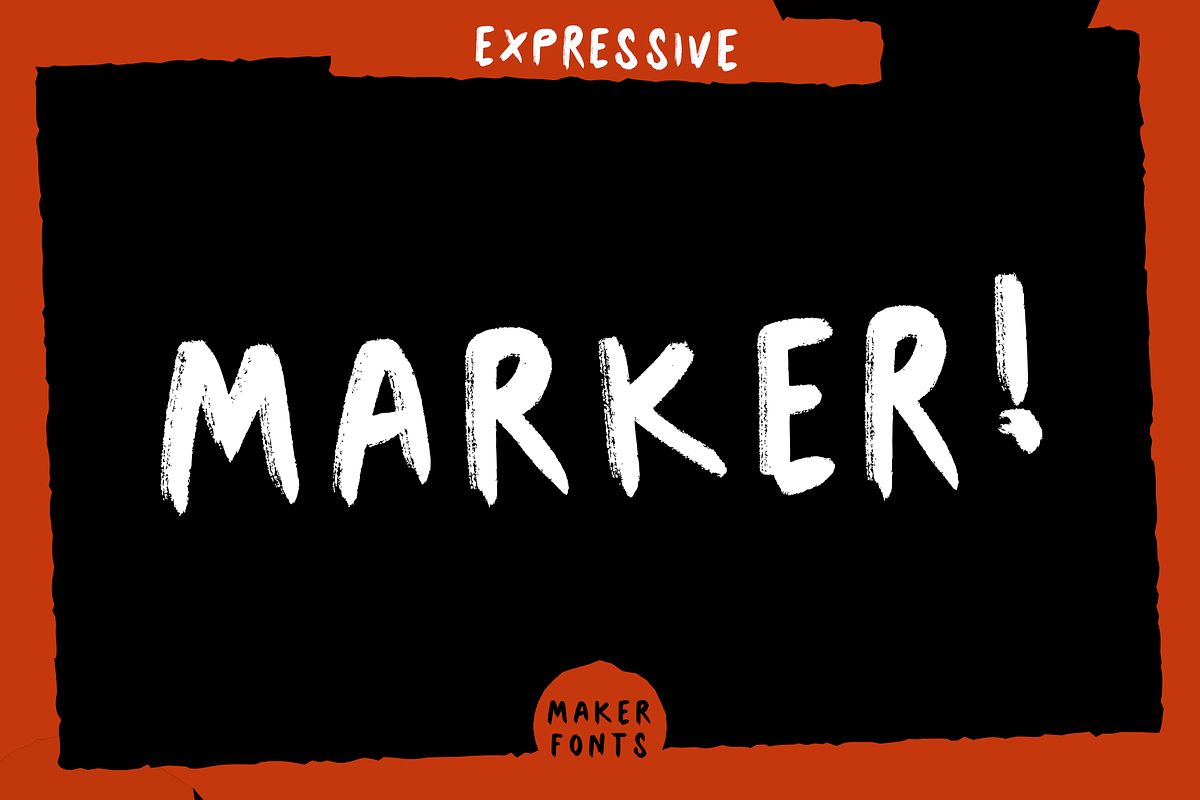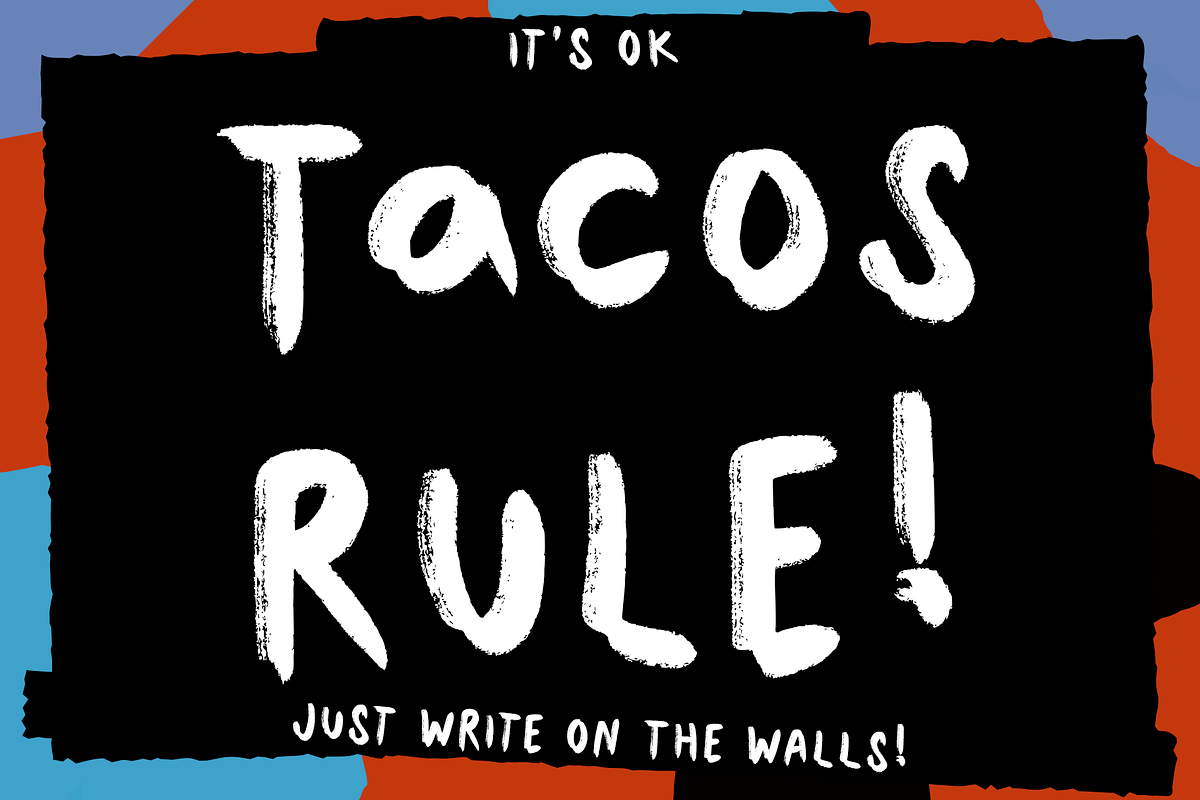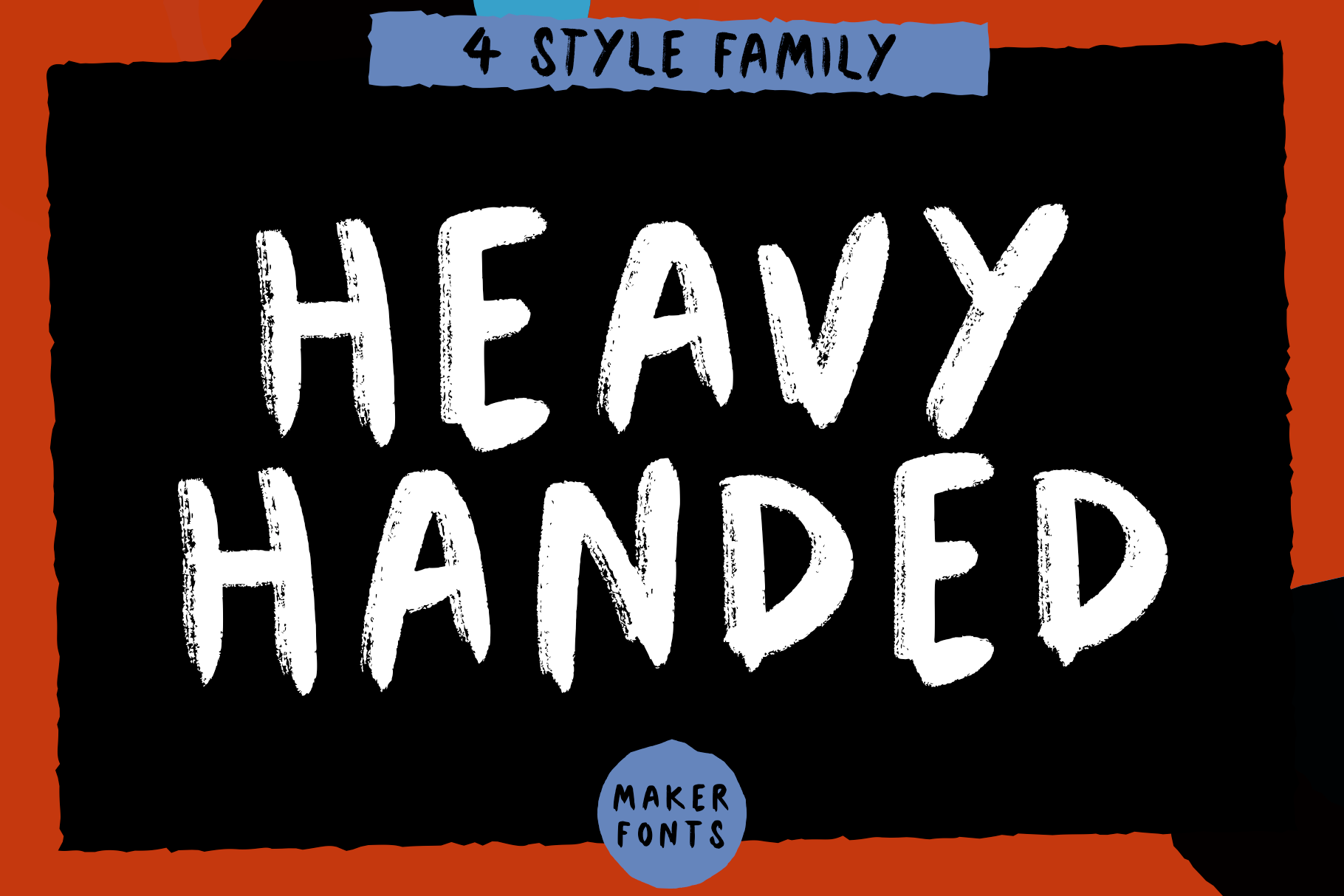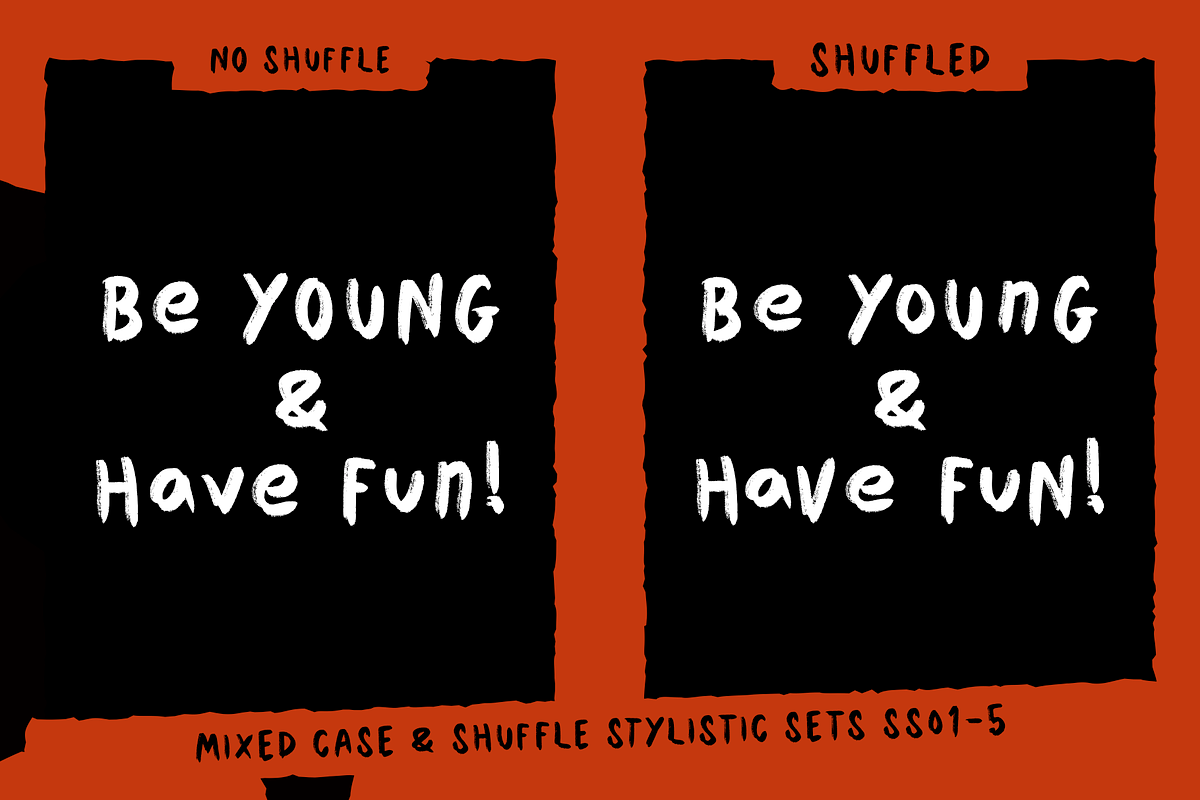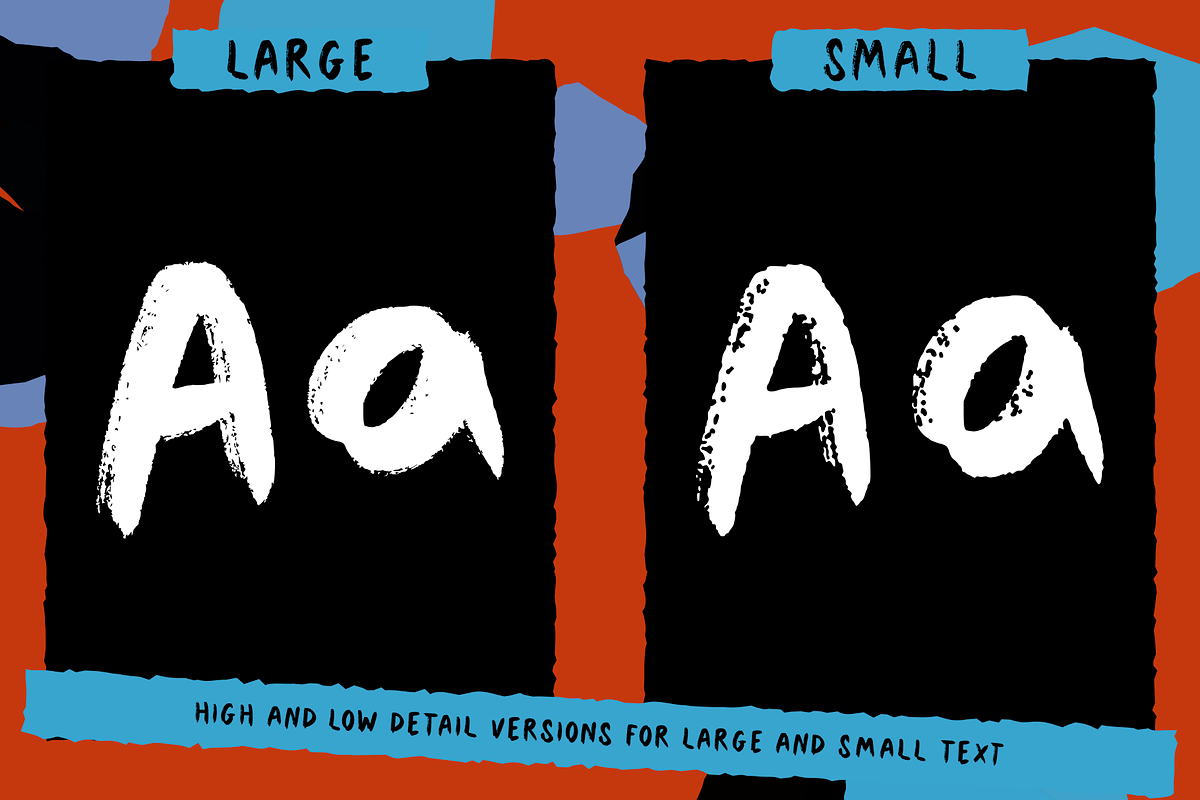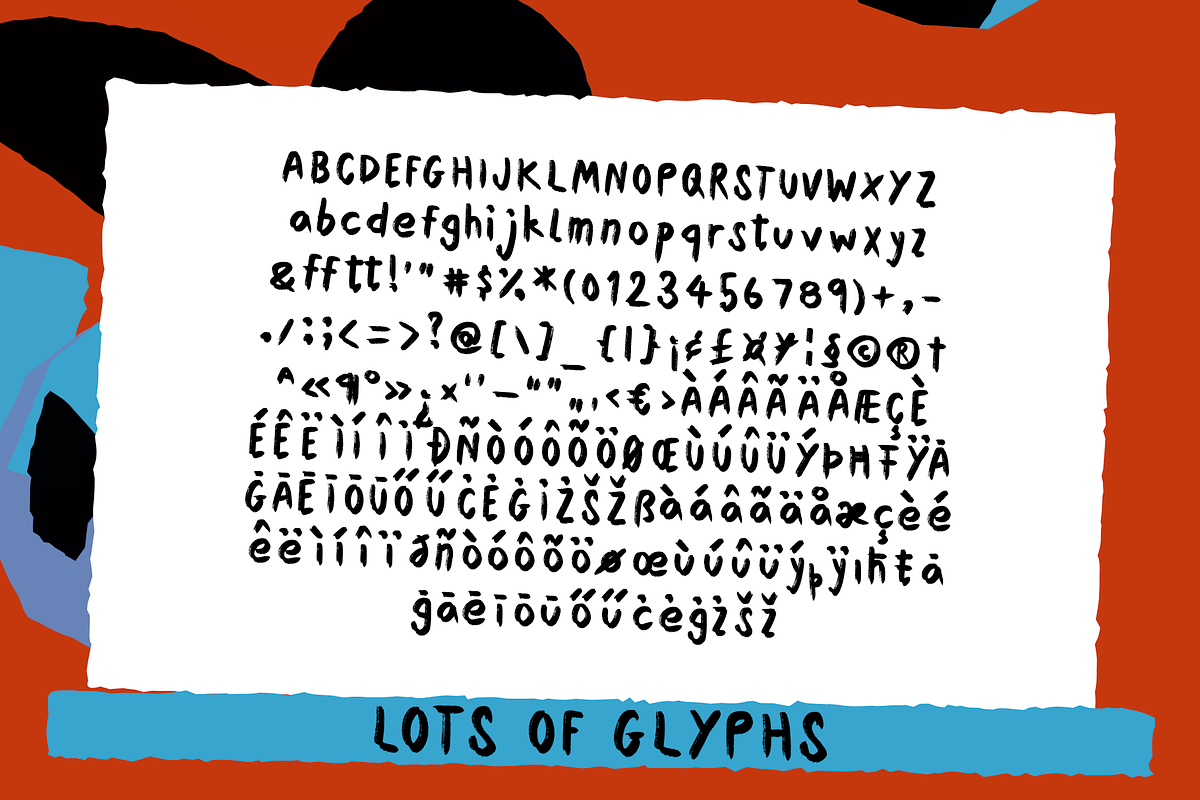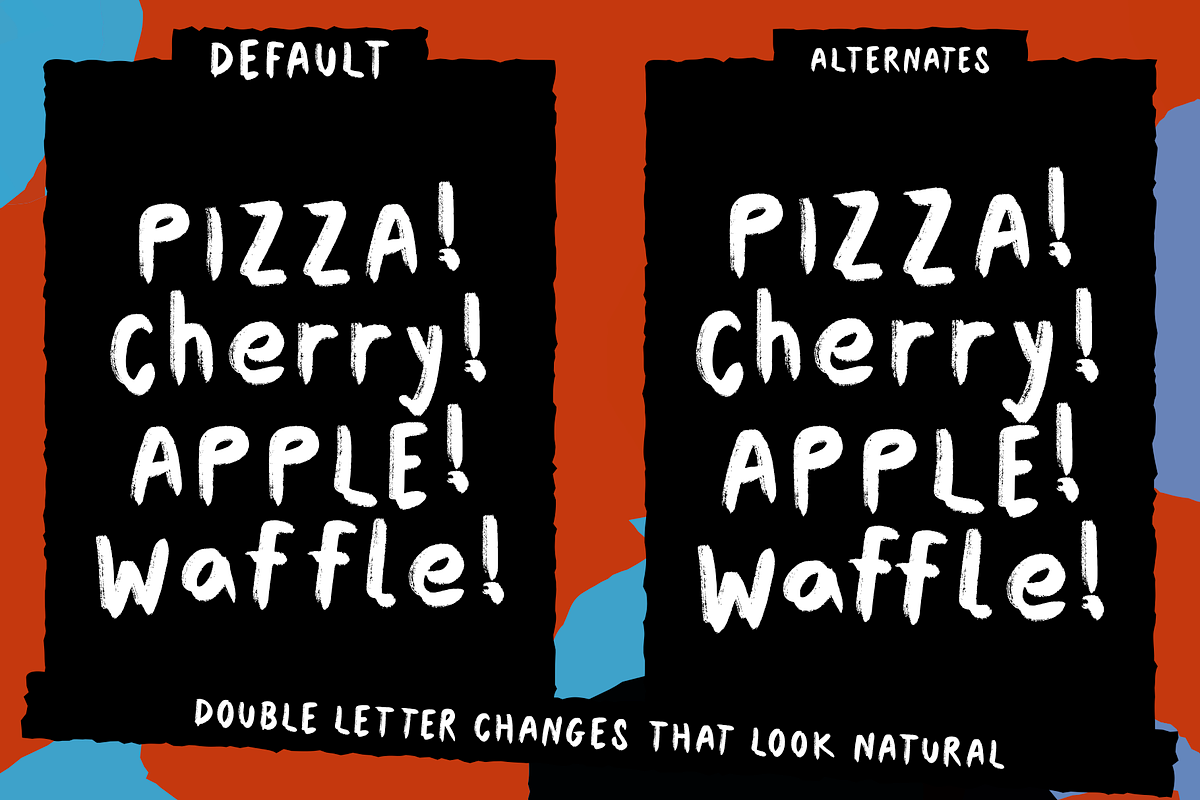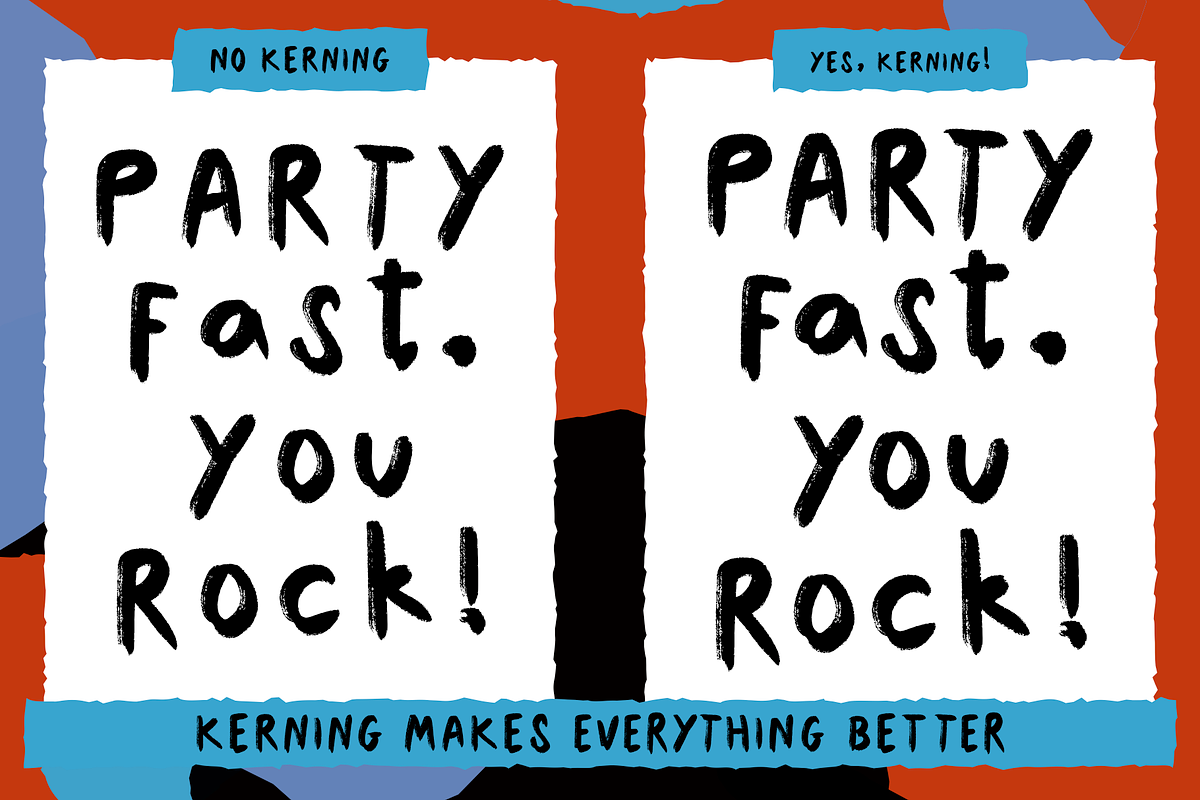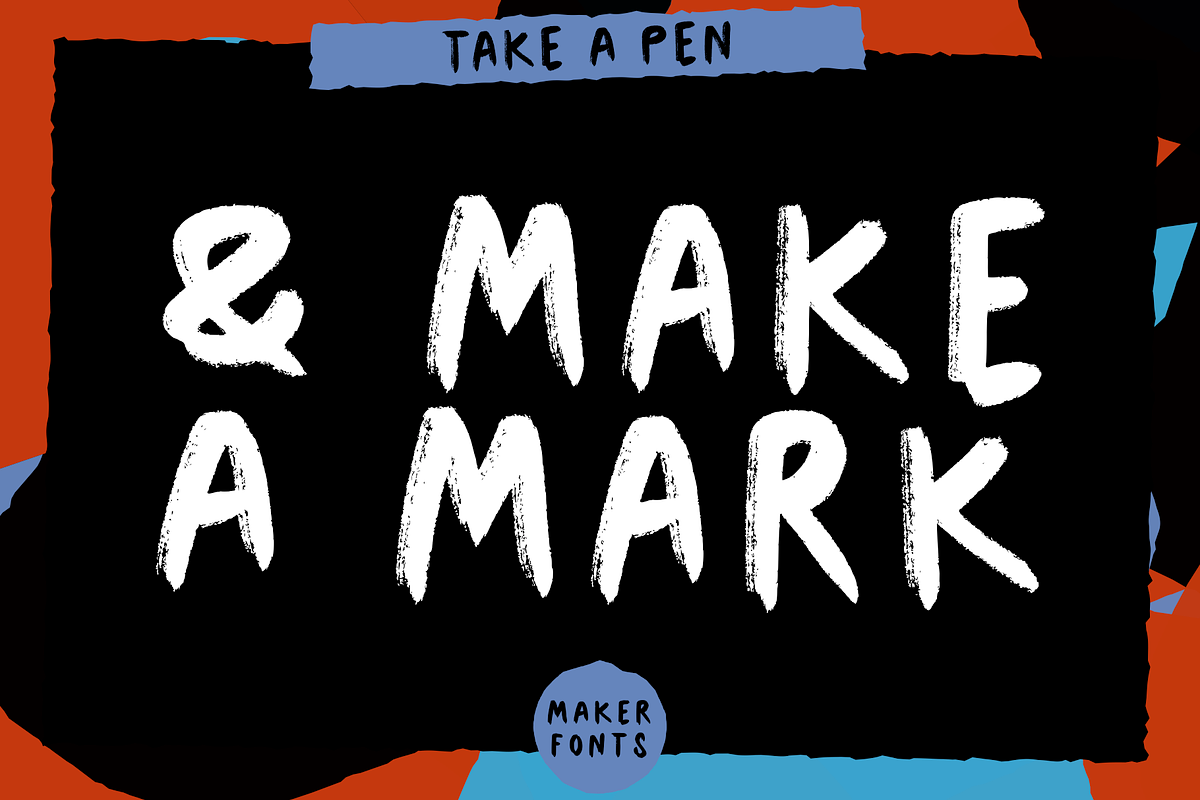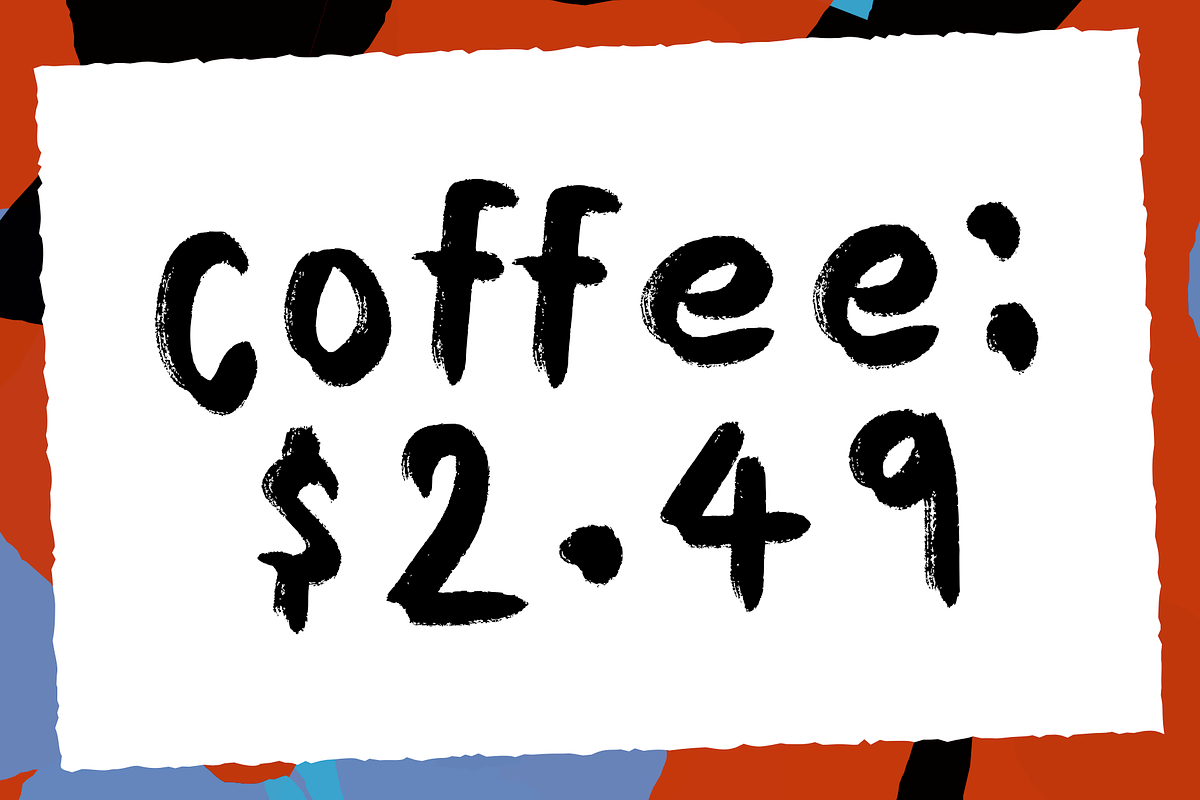
Heavy Handed Handmade 4 Font Family
MF Heavy Handed is a new handmade font from Maker Fonts.
Perfect for greetings cards, packaging, and any use where a bold yet personal touch is needed. Let MF Heavy Handed do the heavy lifting in your next project!
It comes in 4 styles, Regular Large, Italic Large, Regular Small, and Italic Small.
The Large styles have finer details and work best at large sizes, whilst the Small styles have coarser details and work best at small sizes.
The font comes with a large western character set and lots of glyphs.
Opentype features include: Ligatures, Contextual Alternates, and Stylistic Sets (ss01-ss05) that all combine to create a natural handwritten texture.